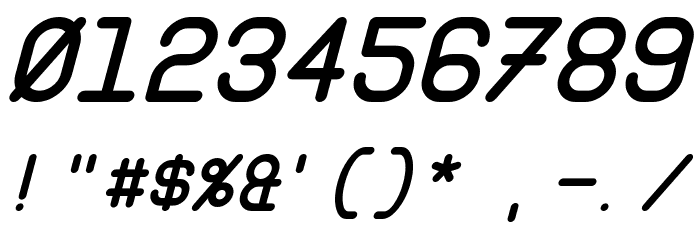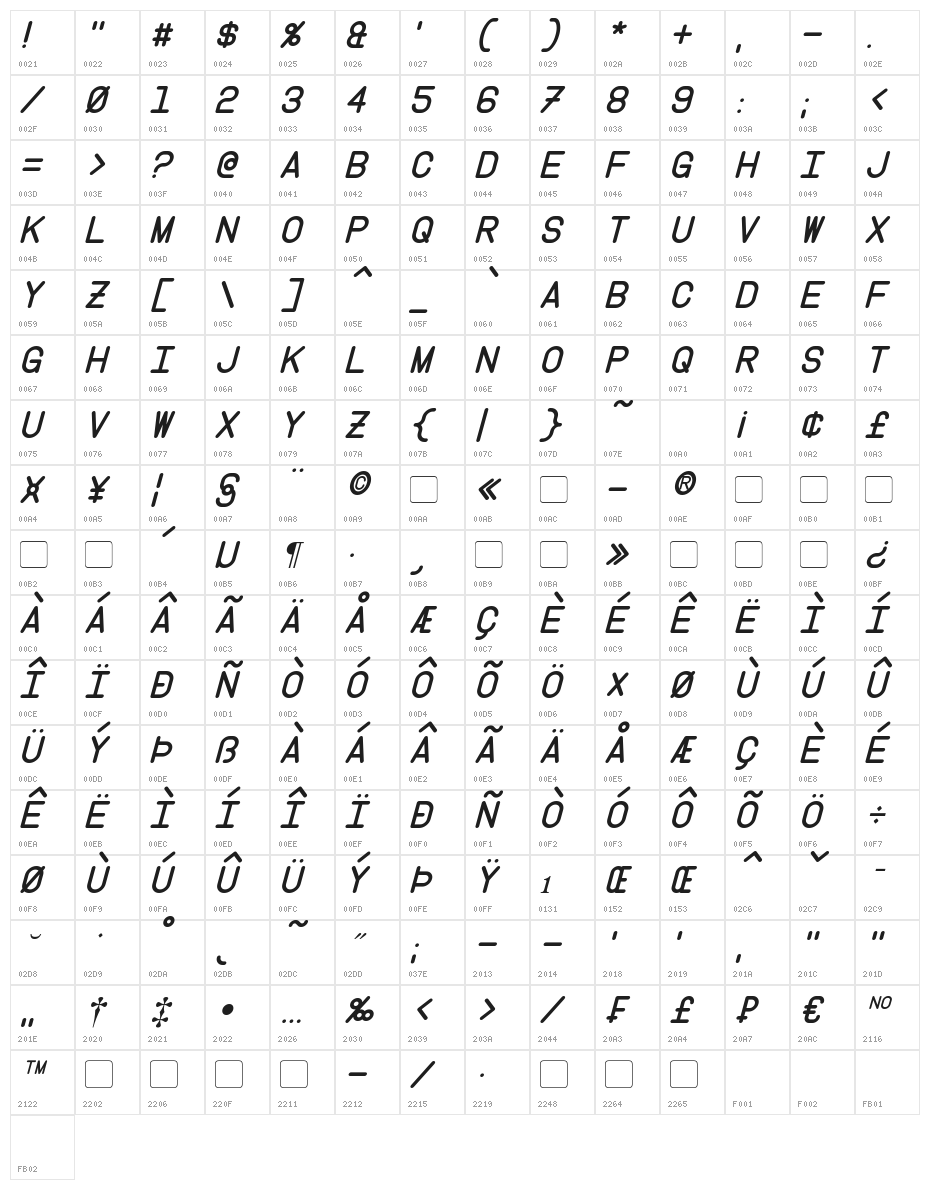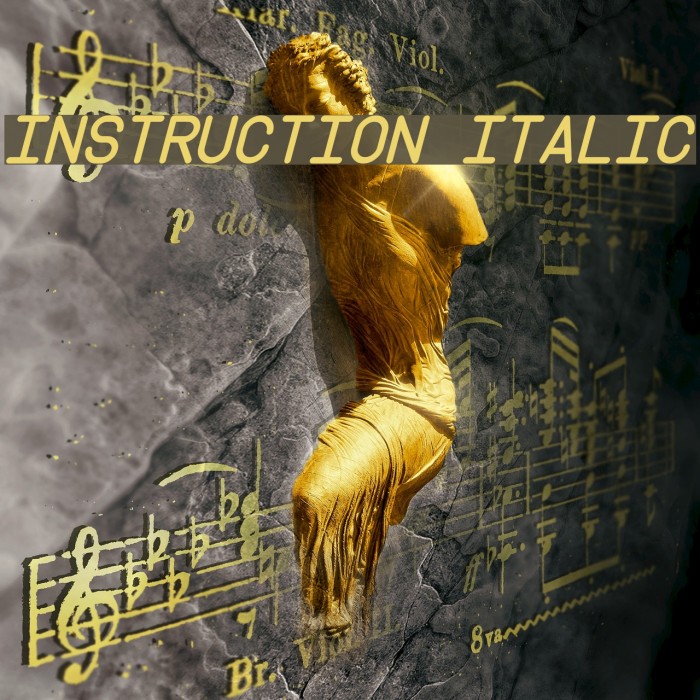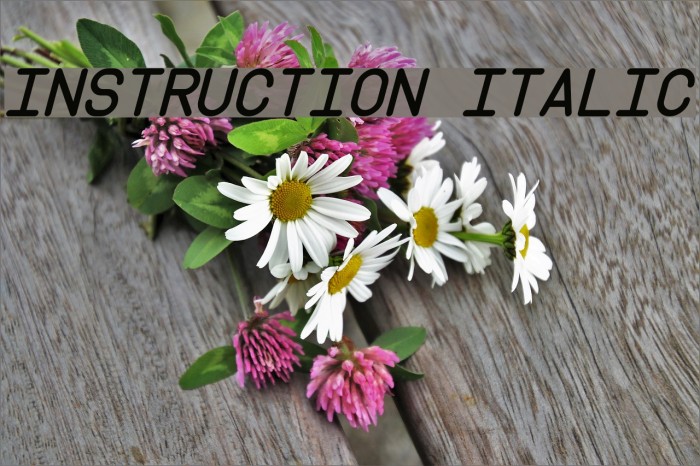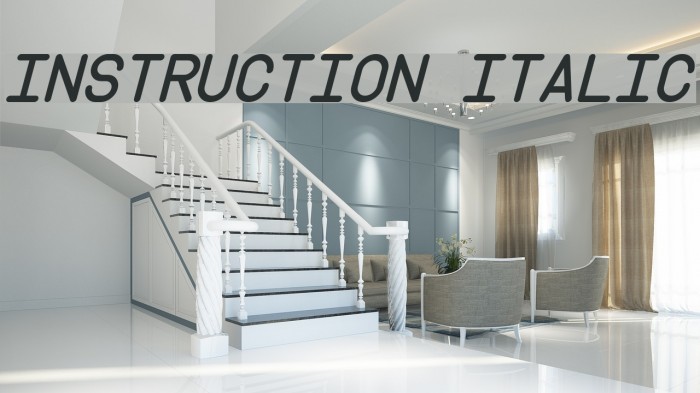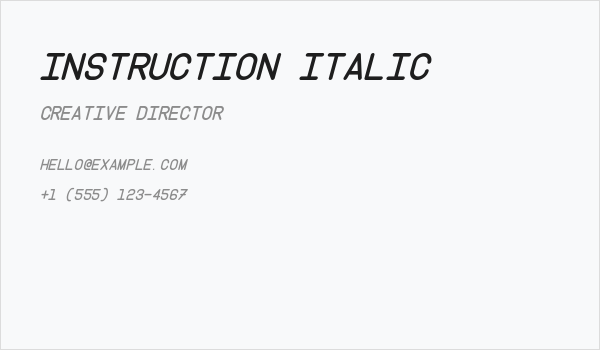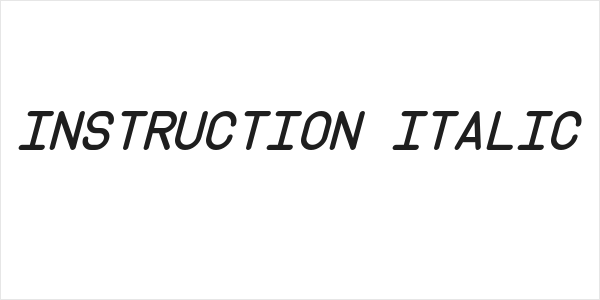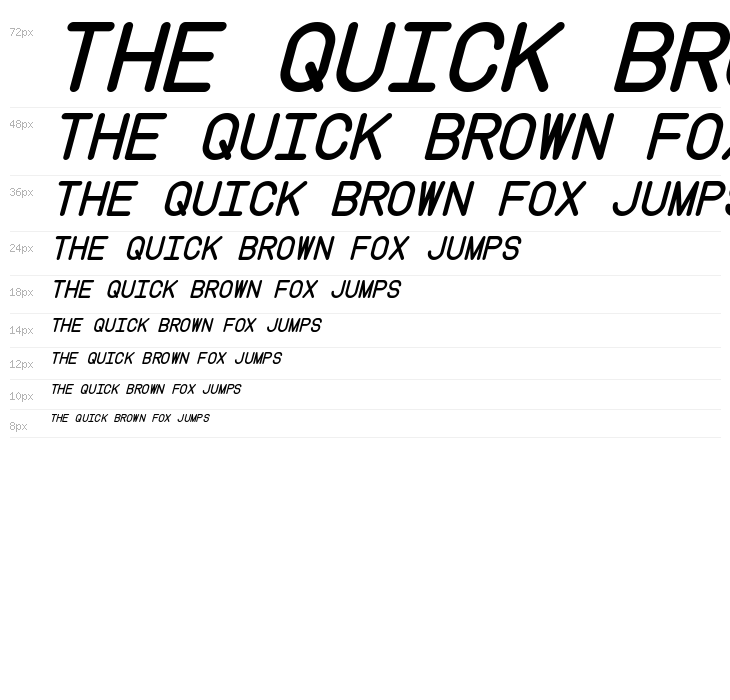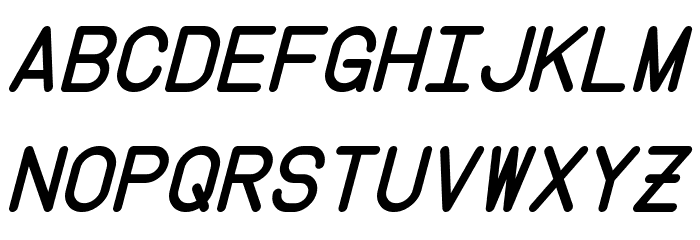
Instruction Italic Font
Instruction Italic Description
This font features a sleek, italicized style that conveys a sense of motion and modernity. The characters are slightly slanted to the right, giving them a dynamic appearance. The strokes are uniform in thickness, providing a clean and consistent look. The font maintains a balance between readability and style, making it suitable for various applications. Its geometric shapes and smooth curves add a touch of elegance, while the spacing between characters is well-proportioned, ensuring clarity and legibility.
| Use Case | Headlines, Logos, Digital media |
| Proposed Projects | Ideal for branding, advertising, and digital media projects that require a modern and dynamic touch. |